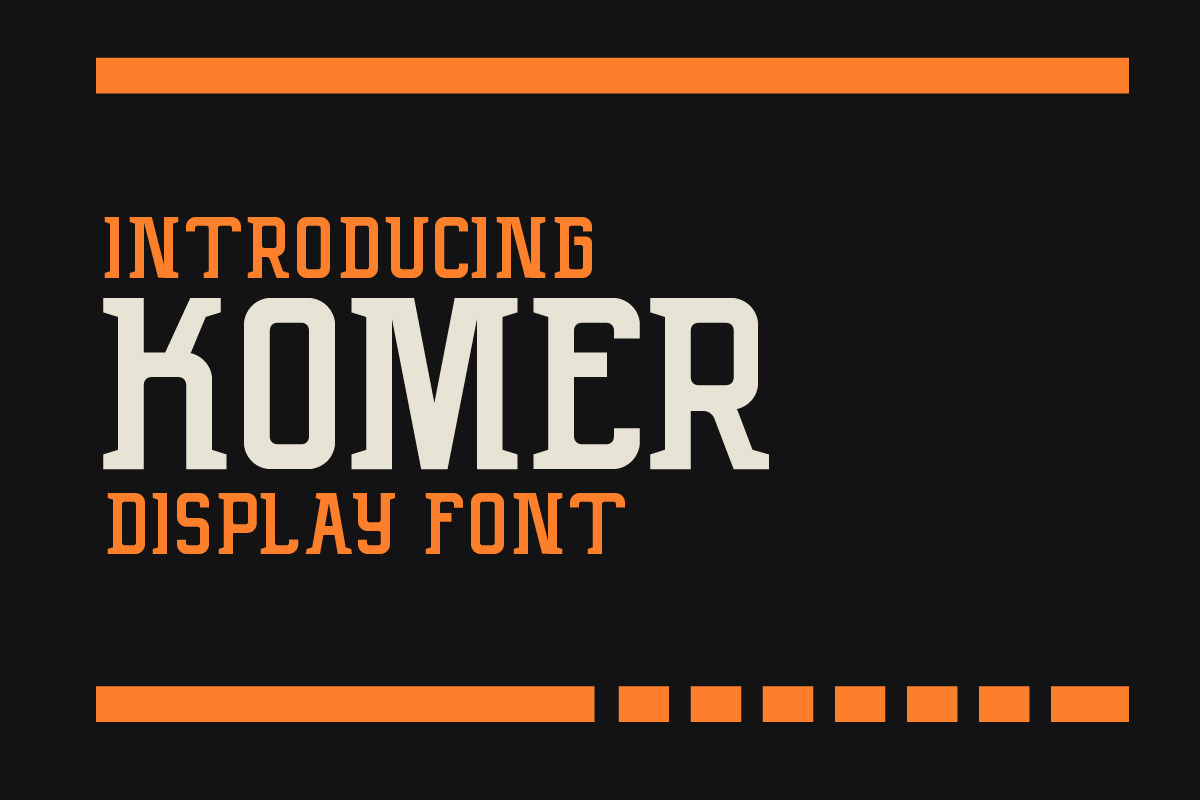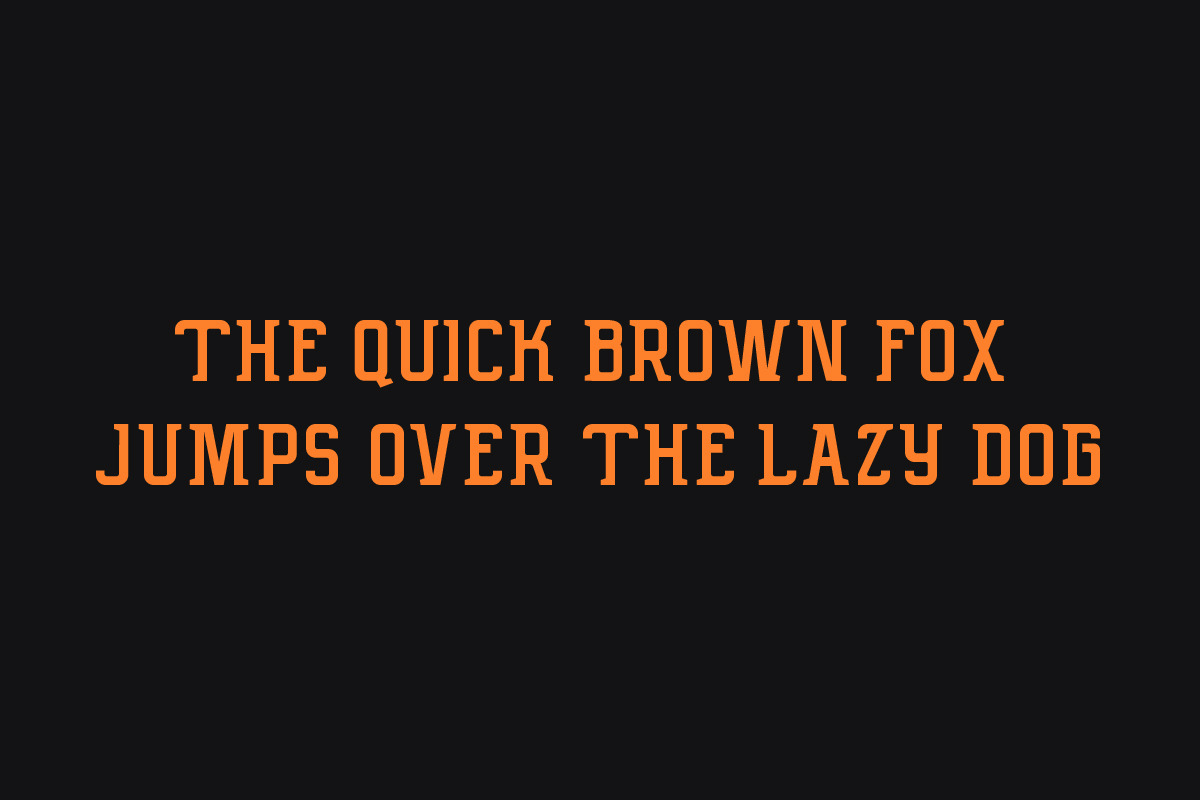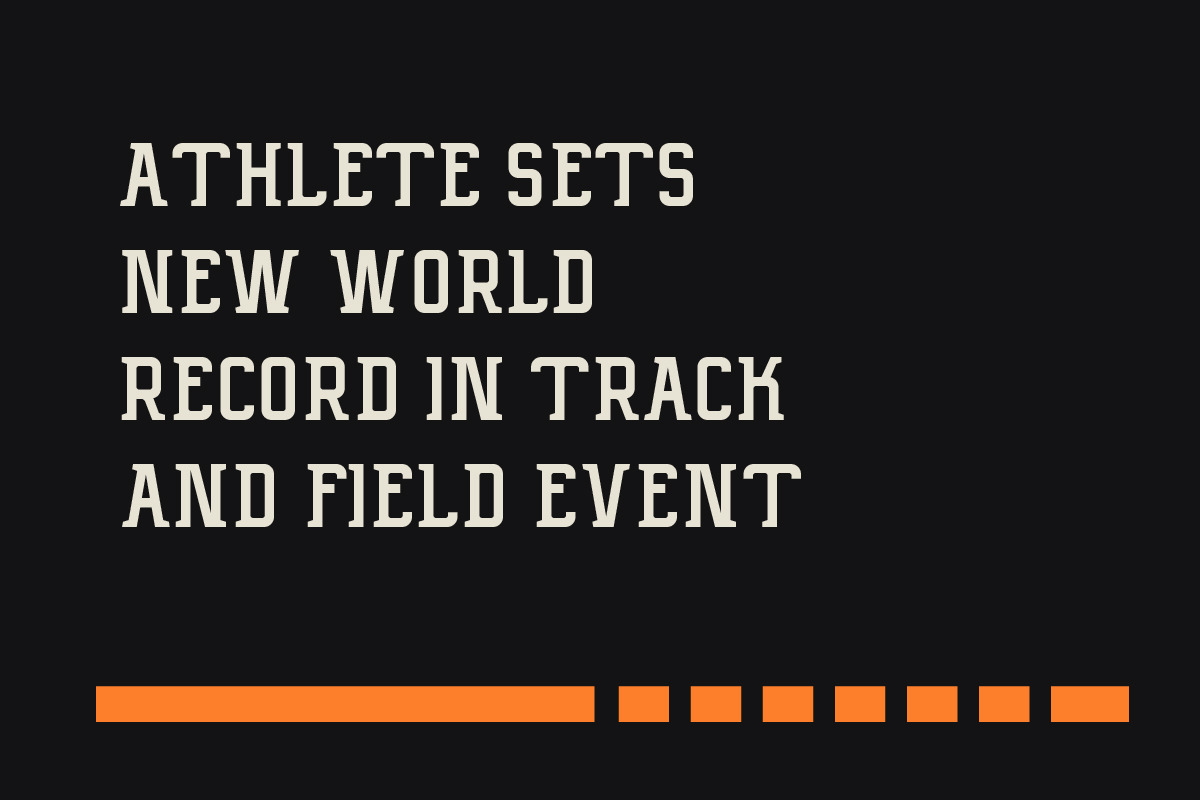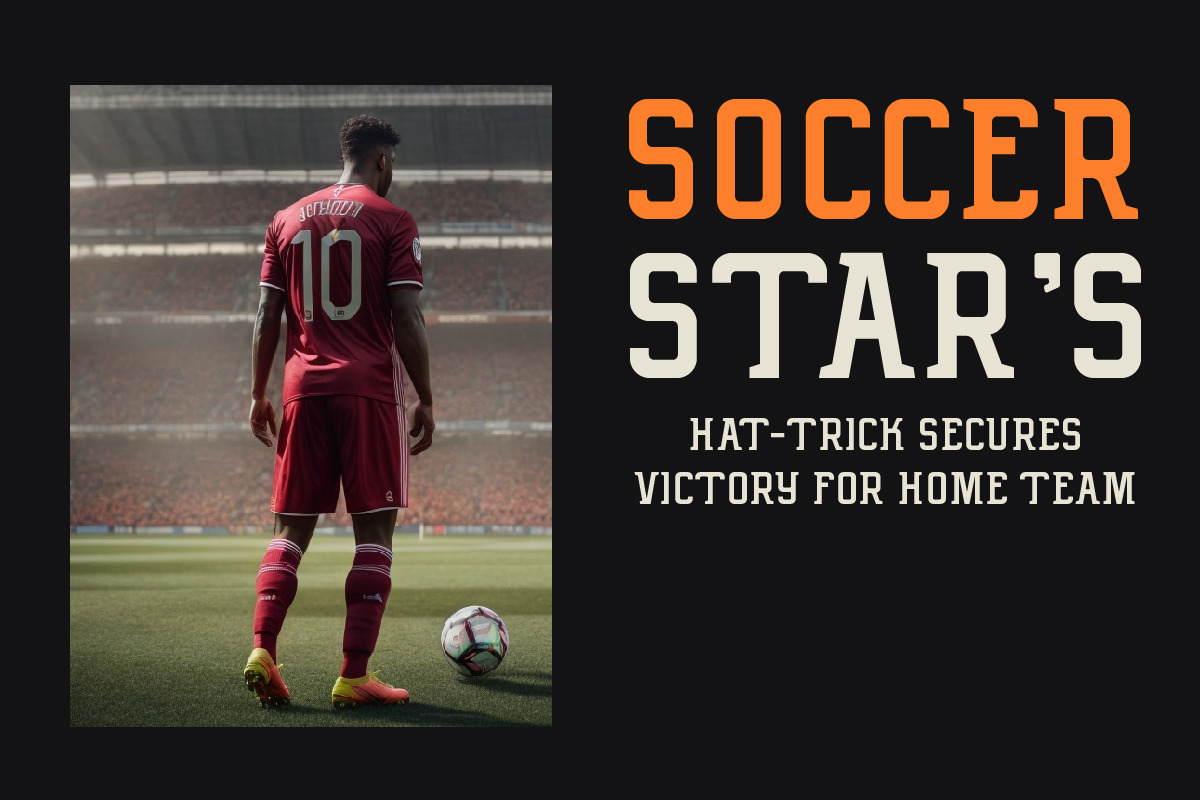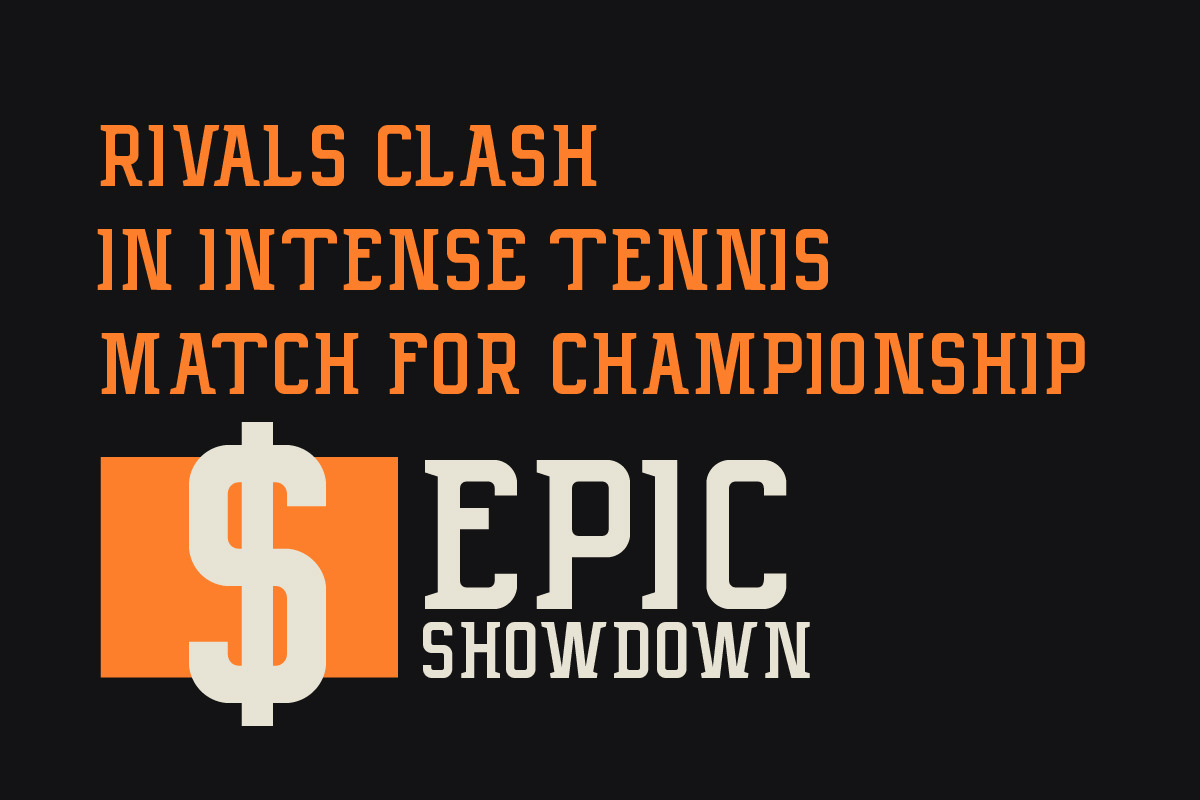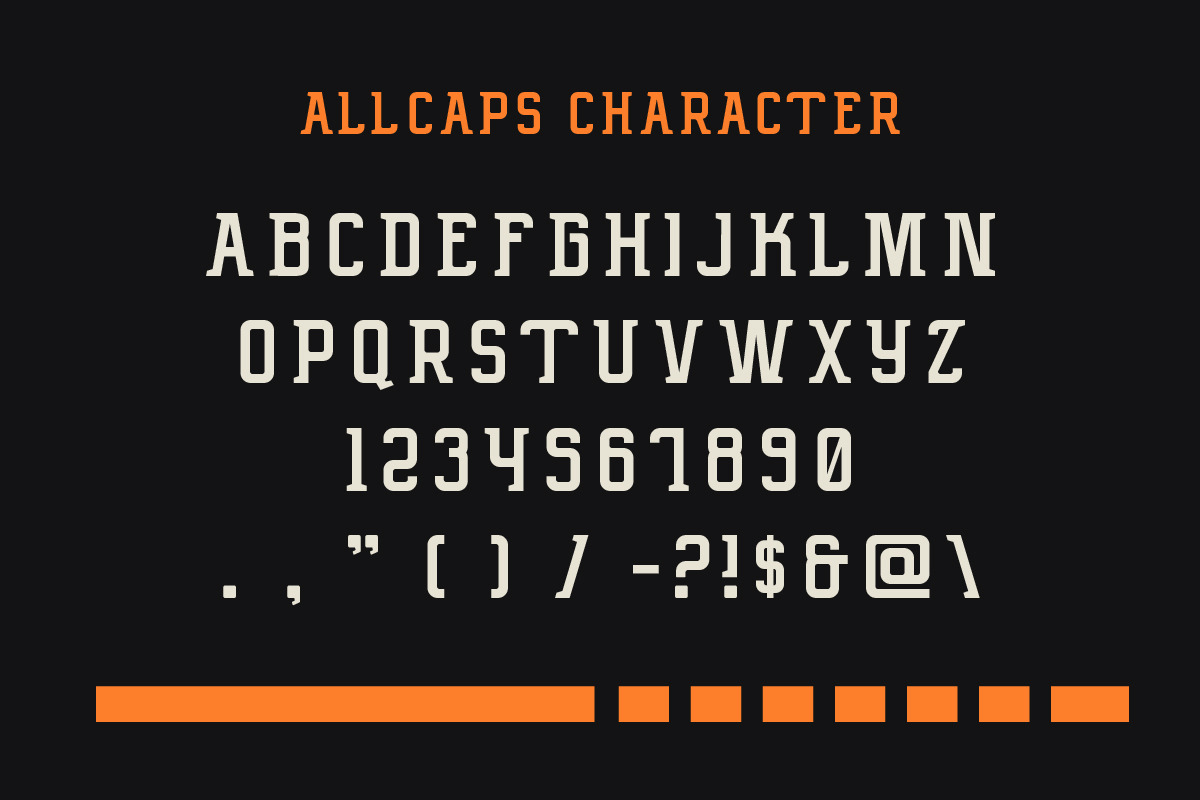
Komer Serif Display Font
Komer Serif Display Font is our new item suitable for your Posters.
Great for Logo, Poster, Sticker, Jerseys, Invitation Card, Brochure, etc.